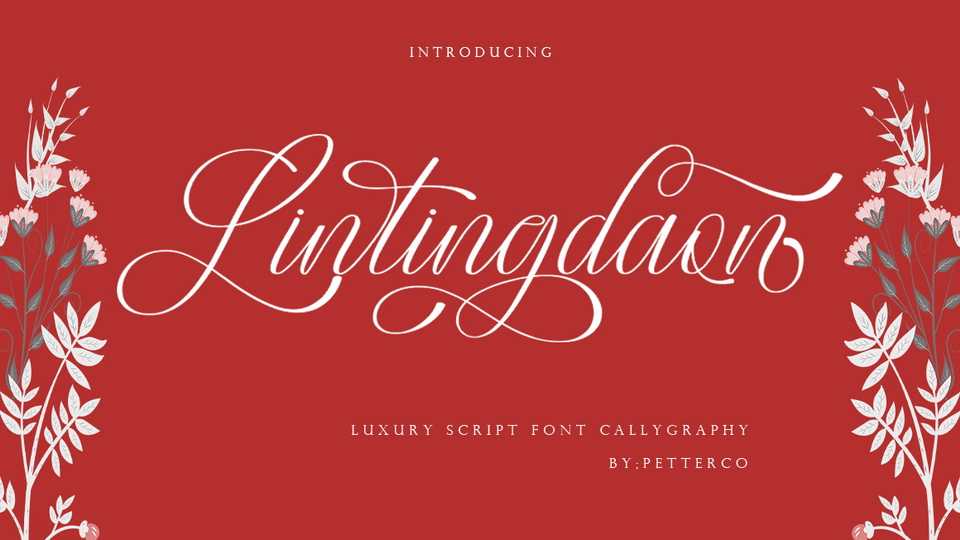
Download Lintingdaon font, a stunnig modern calligrapy script with elegant and charming look. Lintingdaon is a best chiose for wedding design, feminine branding, cards, letters and other beautiful projects.
Designer: Petterco